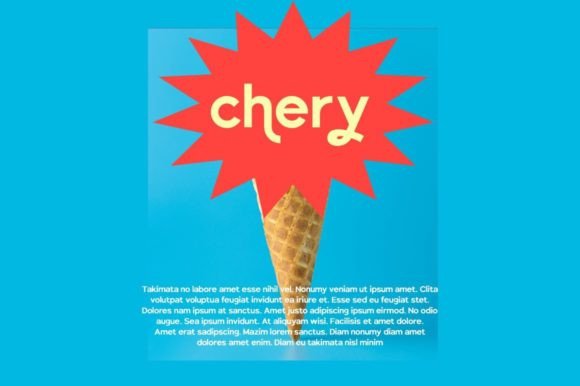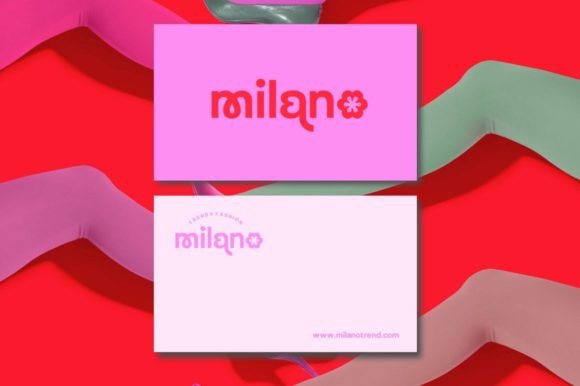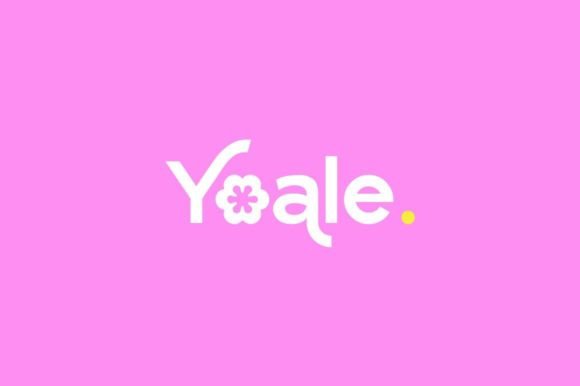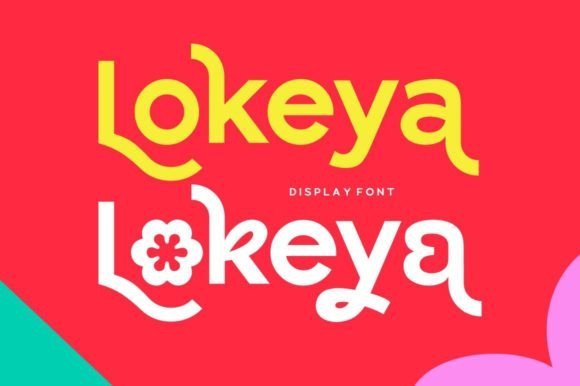
Introduction to Lokeya Font
Lokeya is a natural and clean display font.
It is the best choice for creating eye-catching logos, branding, and quotes Every letter has a unique and beautiful touch, which will make your design come alive.
Lokeya Font offers exceptional quality and versatility, making it a valuable addition to your design toolkit. Whether you’re creating for personal projects or commercial use, Lokeya Font delivers professional results.